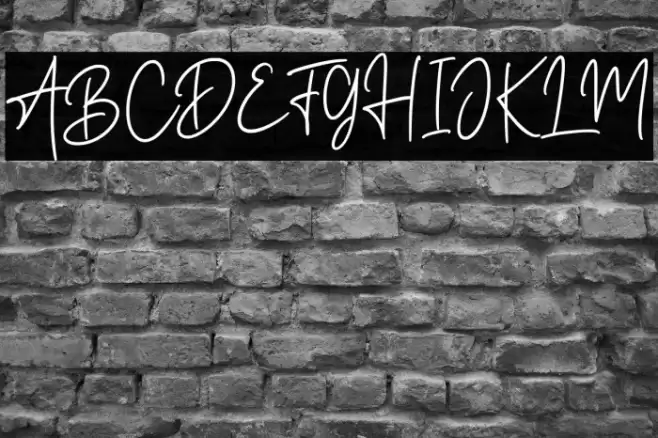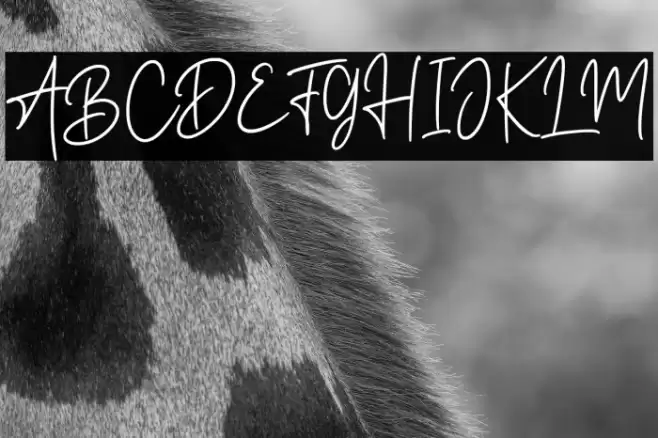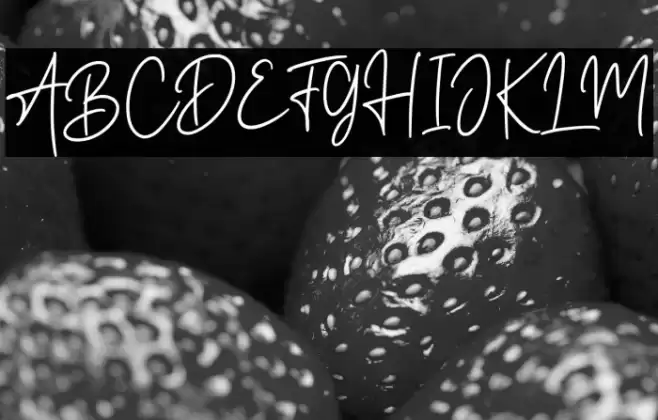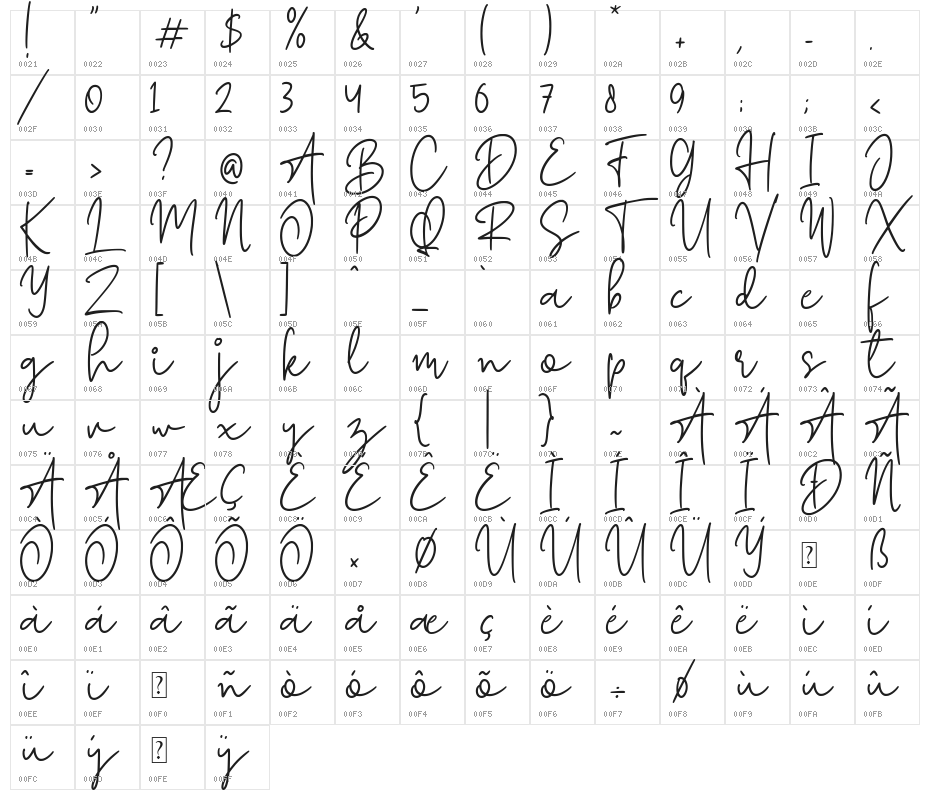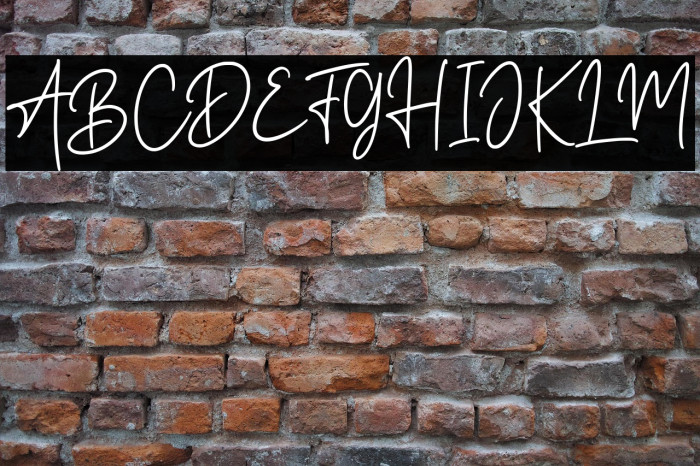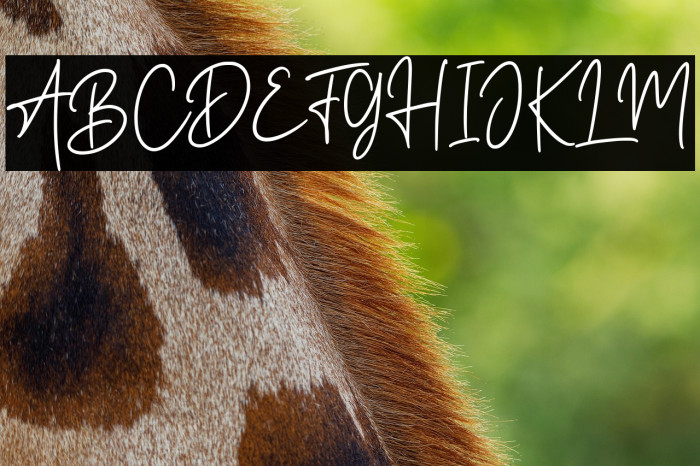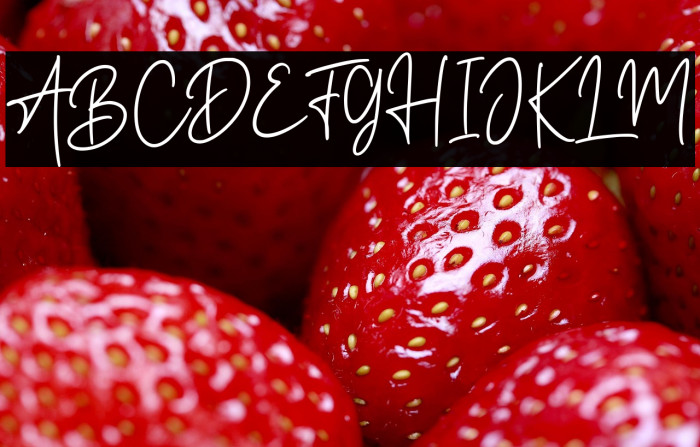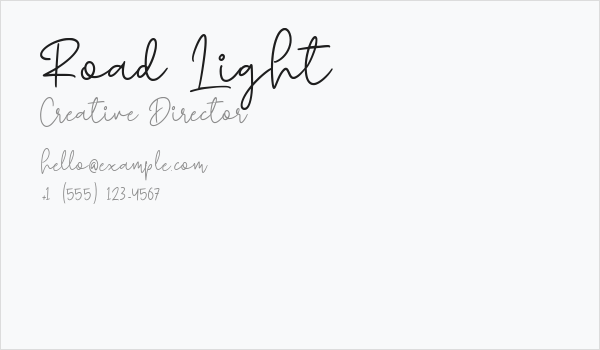
Road Light Font
Road Light Description
This font features a lively and dynamic handwritten style, characterized by its fluid and cursive letterforms. The uppercase letters exhibit a playful yet elegant flair, with smooth curves and a slight slant that adds a sense of motion. The lowercase letters maintain a consistent flow, enhancing the font's overall cohesiveness. Numbers and special characters are crafted with the same attention to detail, ensuring versatility across various applications. The font's light weight and airy appearance make it suitable for projects that require a personal touch or a creative edge.
A lively handwritten font with fluid, cursive letterforms and a playful elegance from Uncategorized fonts.
- Proposed Projects: Ideal for greeting cards, invitations, personal branding, and creative projects that benefit from a handwritten touch.
- Use Case: Logos, Invitations, Personal Branding